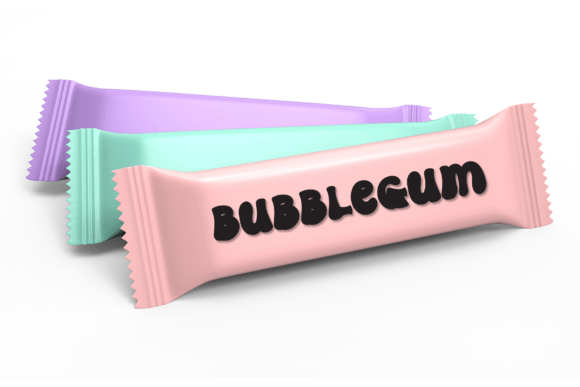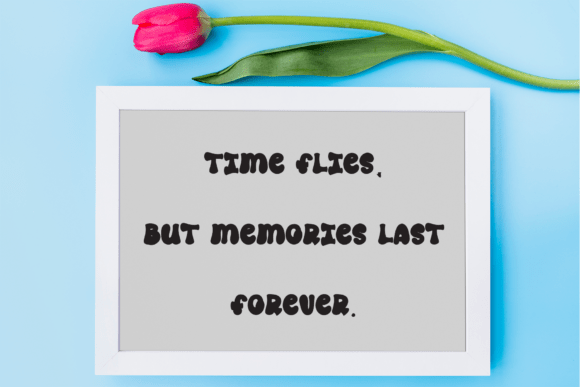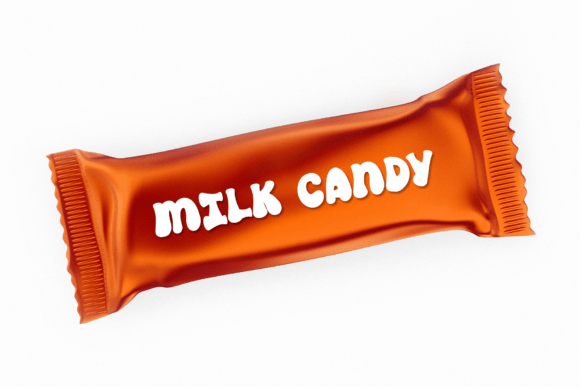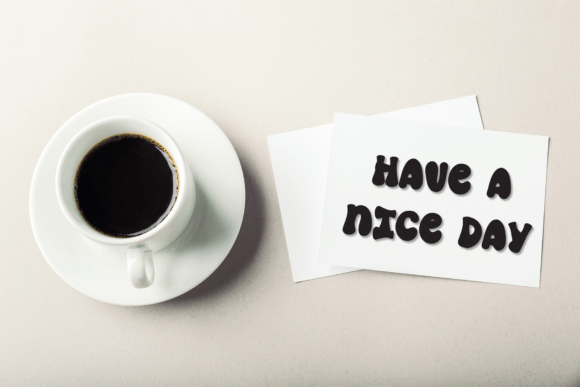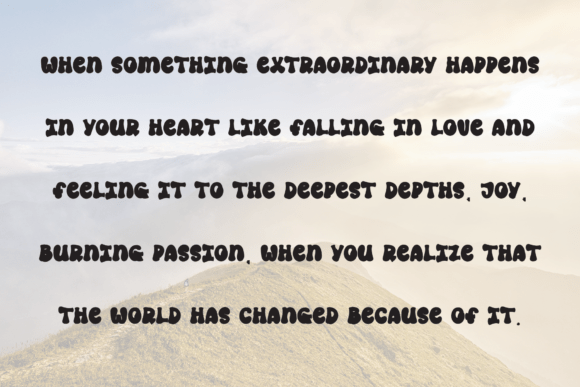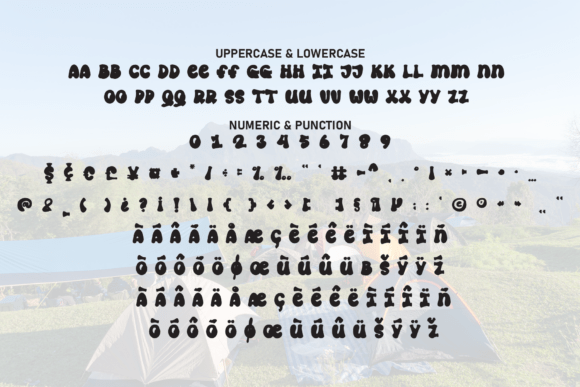
The Perfect Campy Charm: A Deep Dive into the Camping Font
I’ll never forget the time I was working on a camping-themed branding project for a client, and I just couldn’t seem to find the right font. I scrolled through page after page of Google Fonts, but nothing seemed quite right. That was until I stumbled upon the Camping Font. Its unique blend of modern simplicity and playful charm instantly won me over, and I knew I had found the perfect fit for my project.
So, what makes the Camping Font so special? Let’s dive into the good stuff and a few quirks I’ve discovered.
• Clean and modern design: The Camping Font boasts clean shapes, soft edges, and well-balanced letterforms that make it perfect for a wide range of design projects.
• Perfect readability: The font’s clarity and style ensure that your message gets across, whether you’re designing a poster, social media graphic, or packaging.
• 🎉 Playful and approachable vibe: The Camping Font adds a fresh and friendly touch to any project, making it ideal for brands that want to connect with their audience on a more personal level.
While the Camping Font is an excellent choice for many projects, there are a few things to keep in mind:
• 🤔 Limited use of OpenType features: While the font does offer some basic OpenType features, it’s not as extensive as some other fonts on the market.
• ⚠️ May not be suitable for body text: Due to its display nature, the Camping Font may not be the best choice for longer blocks of text.
The Designer Inspiration Behind the Camping Font
While the true story behind the Camping Font’s creation may be unknown, it’s easy to imagine a designer who loves the outdoors and wants to capture the essence of a carefree camping trip. Perhaps they drew inspiration from the natural world, combining the simplicity of modern design with the playfulness of handwritten fonts.
Q: What type of projects is the Camping Font best suited for?
A: The Camping Font is ideal for posters, branding, packaging, and social media graphics where a fresh and friendly touch is desired.
Q: Does the Camping Font offer any OpenType features?
A: Yes, the Camping Font offers some basic OpenType features, including ligatures and stylistic alternates.
Q: Is the Camping Font suitable for body text?
A: Due to its display nature, the Camping Font may not be the best choice for longer blocks of text. It’s better suited for headlines and titles.